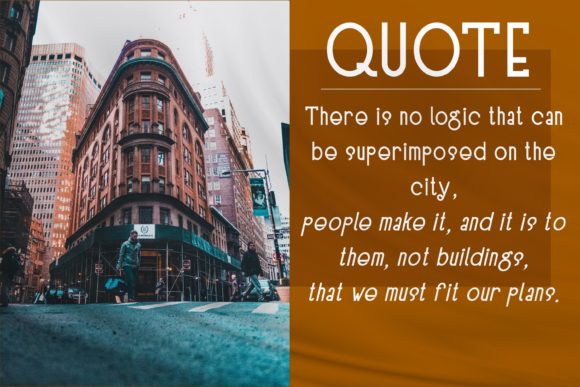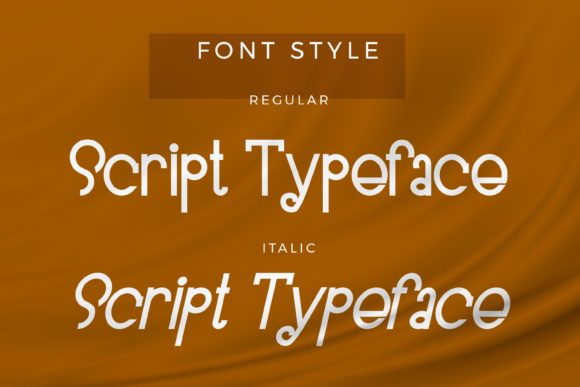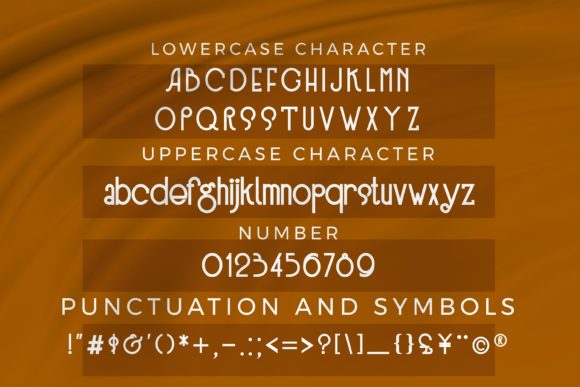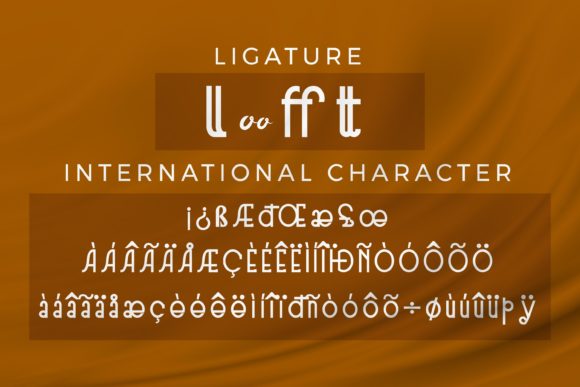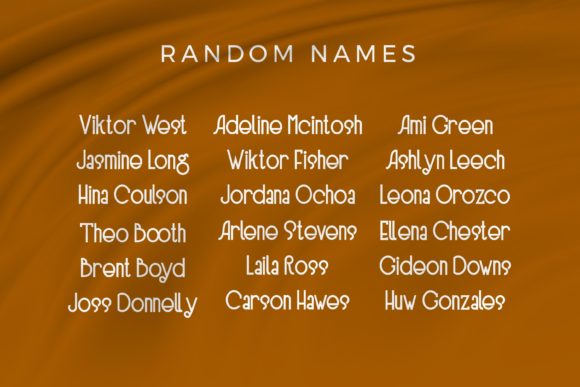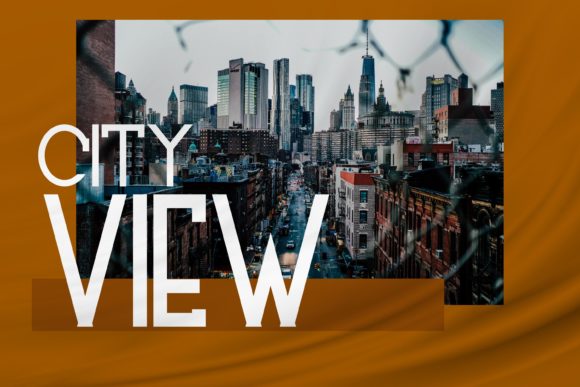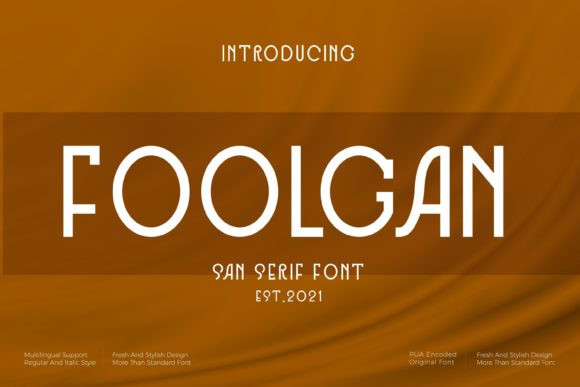
Foolgan Font: The Ultimate Sans Serif Font for Designers and Crafters
Are you tired of using the same old fonts in your designs? Look no further than Foolgan Font, a tall and delicate sans serif font that’s perfect for a wide variety of projects. With its neat and simple style, Foolgan Font has the potential to become your go-to font, no matter the occasion.
What is Foolgan Font?
Foolgan Font is a modern sans serif font that’s designed to be both elegant and versatile. Its tall and delicate letterforms make it perfect for headlines, titles, and other display text, while its simple and clean style ensures that it will fit in seamlessly with any design.
Key Features of Foolgan Font
- Tall and Delicate Letterforms: Foolgan Font’s letterforms are tall and slender, making it perfect for headlines and titles.
- Sans Serif Style: The font’s sans serif style gives it a clean and modern look that’s perfect for a wide variety of designs.
- Neat and Simple: Foolgan Font’s simple and neat style ensures that it will fit in seamlessly with any design.
- Versatile: Foolgan Font is perfect for a wide variety of projects, from branding and advertising to packaging and web design.
Why Choose Foolgan Font?
So why should you choose Foolgan Font for your next project? Here are just a few reasons:
- Unique and Eye-Catching: Foolgan Font’s unique and eye-catching letterforms are sure to grab attention and make your design stand out.
- Easy to Read: Despite its delicate style, Foolgan Font is easy to read, even at small sizes.
- Highly Versatile: Foolgan Font is perfect for a wide variety of projects, from print to digital.
- Timeless: Foolgan Font’s simple and clean style ensures that it will remain timeless, even as design trends come and go.
Uses for Foolgan Font
Foolgan Font is perfect for a wide variety of projects, including:
- Branding and Advertising: Use Foolgan Font to create eye-catching logos, ads, and marketing materials.
- Packaging: Foolgan Font is perfect for packaging design, from labels to product packaging.
- Web Design: Use Foolgan Font to create clean and modern website designs.
- Signage: Foolgan Font is perfect for signage, from store signs to billboards.
- Crafting: Foolgan Font is also perfect for crafters, from scrapbooking to card making.
Tips for Using Foolgan Font
Here are a few tips for using Foolgan Font in your designs:
- Use it as a Headline Font: Foolgan Font is perfect for headlines and titles, so use it to grab attention and make your design stand out.
- Pair it with Other Fonts: Foolgan Font pairs well with a wide variety of other fonts, so don’t be afraid to experiment and find the perfect combination.
- Experiment with Different Sizes: Foolgan Font looks great at a wide range of sizes, so experiment to find the perfect size for your design.
| Font Name | Foolgan Font |
| Author | mahstudios |
In conclusion, Foolgan Font is a versatile and elegant sans serif font that’s perfect for a wide variety of designs. With its tall and delicate letterforms, simple and clean style, and highly versatile nature, Foolgan Font has the potential to become your go-to font, no matter the occasion. So why not give it a try and see for yourself why Foolgan Font is the perfect choice for designers and crafters alike?